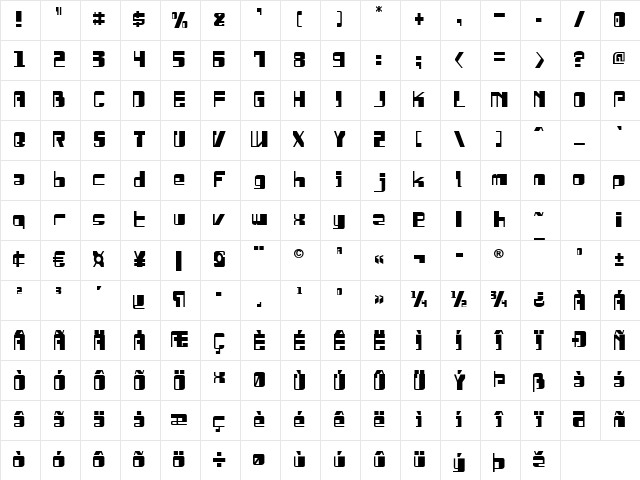
Drosselmeyer Regular Free Font
Drosselmeyer Regular
Designer: Dan Zadorozny
Complete Drosselmeyer Regular glyph index. Displaying only characters natively supported by Drosselmeyer Regular font.
Design Context for Drosselmeyer
Drosselmeyer is a composed and adaptable typeface that performs quietly and consistently across a wide range of design contexts.